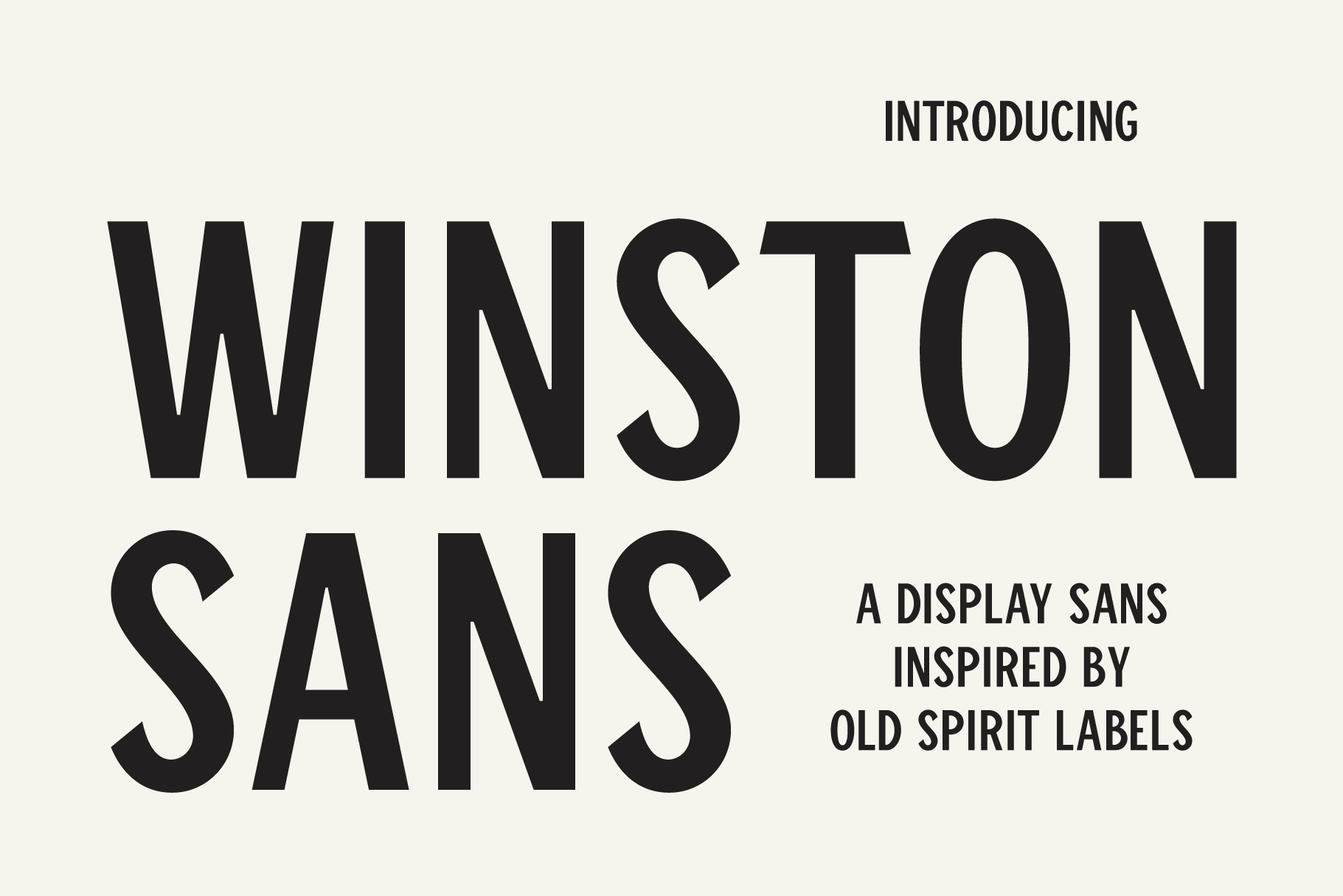
Inspired by old spirits labels, the Winston family is a perfect mix of vintage and modern. Winston & Winston Sans are great for brand identity, package design, poster design, and more!
- Sans Serif typeface
- All Caps typeface
- Capital letter alts